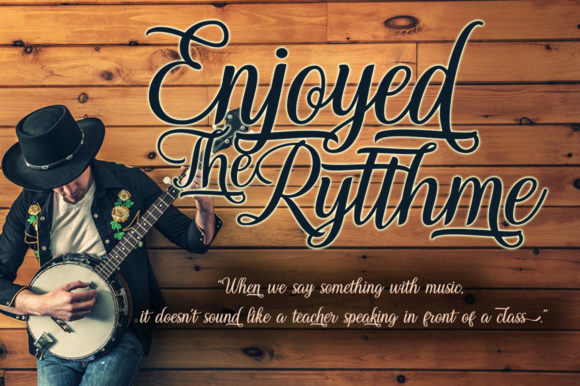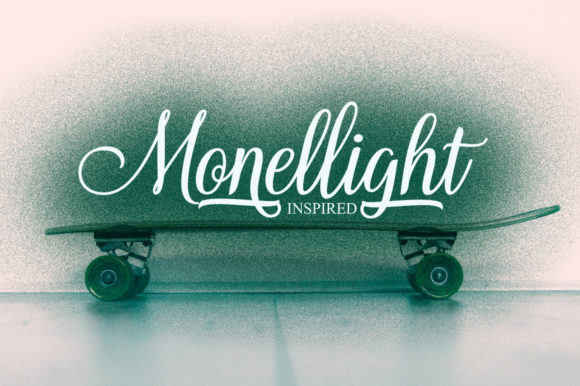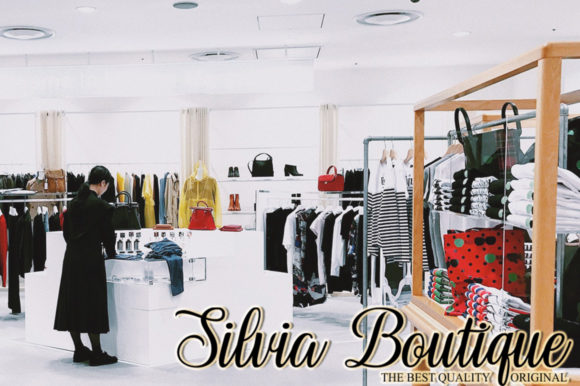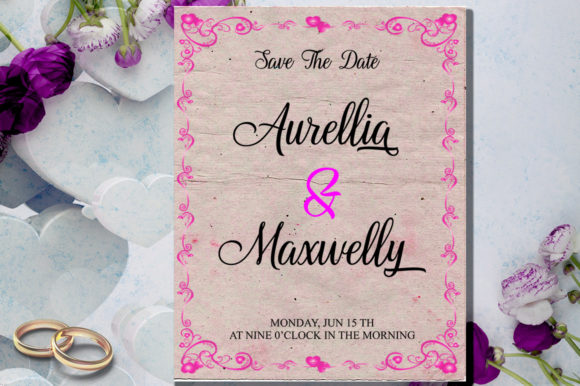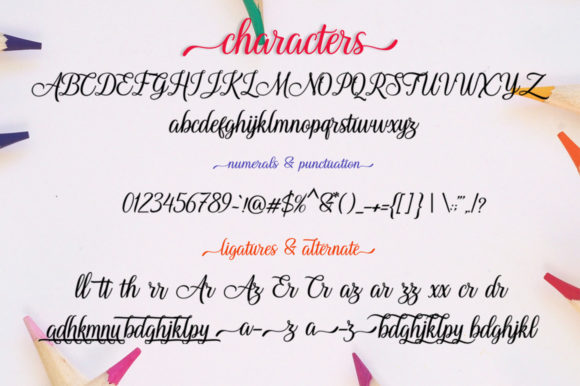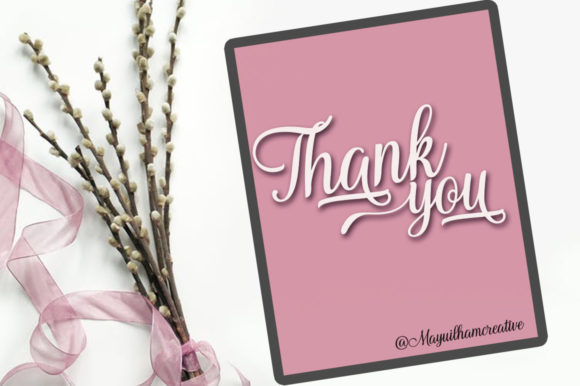
Introduction to Lettonelly Font
Have you ever found yourself staring at a blank canvas, desperately searching for the perfect font to bring your creative project to life? That’s exactly what happened to many designers when they stumbled upon the Lettonelly Font. This stunning, authentic, and unique handwritten font has been making waves in the design community with its bold touch and high-quality design.
As a valuable resource for designers, the Lettonelly Font offers a transparent background, allowing for seamless integration into any creative project. Its authentic and unique style sets it apart from other fonts, making it a must-have for designers looking to add a personal touch to their work.
Key Features of Lettonelly Font
- Unique characteristics include a modern and elegant aesthetic, making it perfect for branding, logos, and creative projects.
Honest Review: Lettonelly Font
As a designer, I’m always on the lookout for high-quality design resources to enhance my creative projects. Recently, I stumbled upon the Lettonelly Font, which caught my attention with its unique style and aesthetic. After putting it to the test, I’m excited to share my honest review with you.
- ✨ The font’s clean and minimalist design makes it perfect for modern creative projects.
- ✨ The font’s transparent background allows for seamless integration with various design elements.
- ⚠️ The font’s limited character set may not be suitable for extended text-based projects.
- ⚠️ Some users may find the font’s style too minimalist, which may not appeal to those who prefer bolder typography.
Overall, I’m impressed with the Lettonelly Font’s high quality and versatility. While it may have some limitations, it’s an excellent addition to any designer’s toolkit. Whether you’re working on a creative project or simply need a stylish font, the Lettonelly Font is definitely worth checking out.
Tips for Getting the Most Out of Lettonelly Font
Use the Lettonelly Font in combination with other design elements to create a cohesive and visually appealing design. Experiment with different font sizes, colors, and arrangements to find the perfect look for your project.
The Lettonelly Font is ideal for a variety of creative projects, including:
- Print and digital magazines
Alternatives to Lettonelly Font
A beautiful script font perfect for creative projects that require a touch of elegance. Alex Brush Font is ideal for wedding invitations, greeting cards, and other designs where a high-quality, handwritten feel is desired. It features a transparent background, making it easy to layer with other design elements. Compared to Lettonelly Font, Alex Brush Font has a more refined and sophisticated look, making it suitable for more formal designs.
A modern script font that’s perfect for designs that require a fun and playful vibe. Great Vibes Font is ideal for social media graphics, advertisements, and other creative projects where a high-energy feel is desired. It features a high-quality design with a transparent background, making it easy to customize and layer with other design elements. Compared to Lettonelly Font, Great Vibes Font has a more dynamic and energetic look, making it suitable for designs that require a bold statement.
A elegant script font perfect for creative projects that require a touch of sophistication. Dancing Script Font is ideal for wedding invitations, greeting cards, and other designs where a high-quality, handwritten feel is desired. It features a transparent background, making it easy to layer with other design elements. Compared to Lettonelly Font, Dancing Script Font has a more fluid and dynamic look, making it suitable for designs that require a sense of movement and energy.